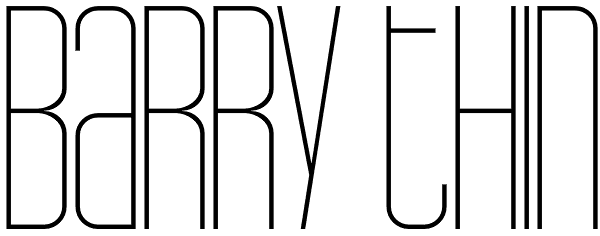
Barry
The Barry family combines two opposite weights. This display face has a great effect if the two fonts are used together. If you want to make your design ordinary, Barry is not the right choice.
Barry Thin
Barry Black